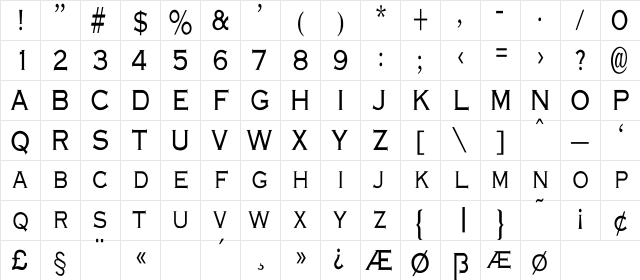
Engraver-Light Cn Regular
Design Context for Engraver-Light Cn
Engraver-Light Cn is a composed and adaptable typeface that performs quietly and consistently across a wide range of design contexts. Its slender proportions lend an understated elegance to any composition.